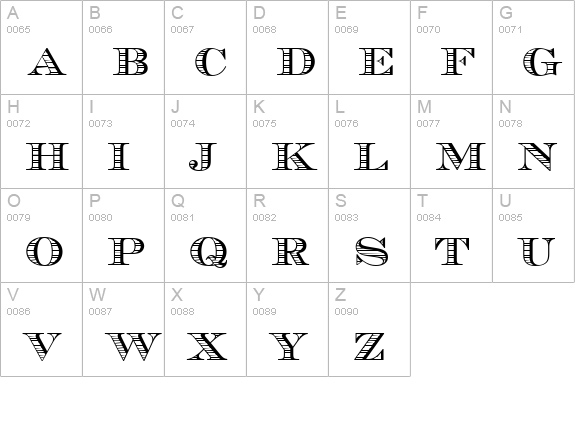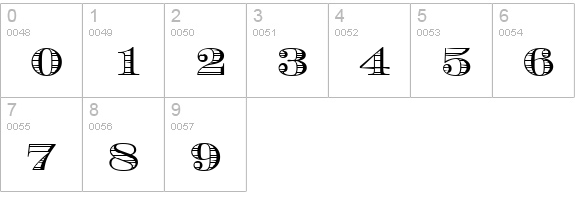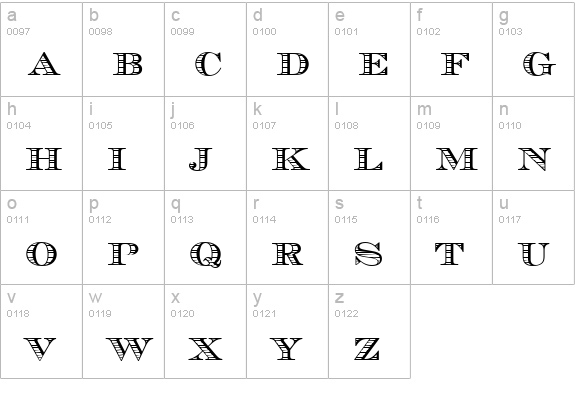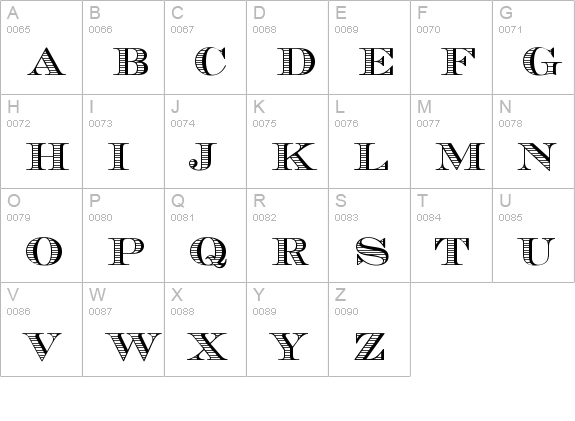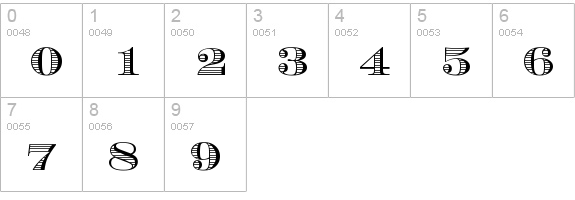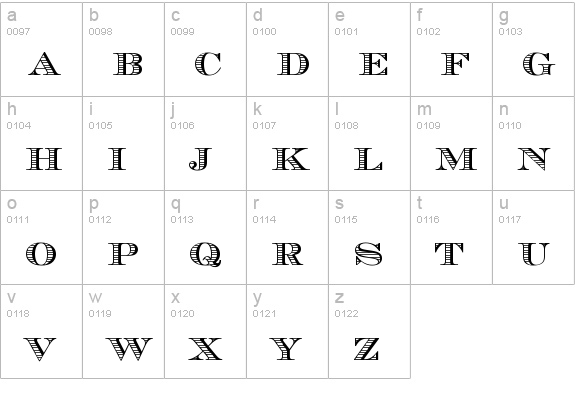
Maurice-Stripes-Regular Font Details
Maurice-Stripes-Regular is the standard, neutral variant in the Maurice typeface family \xE2\x80\x94 well suited to general body text, paragraphs, and standard typographic work.
Maurice Stripes Regular font is a versatile and stylish typeface that exudes a modern and playful vibe. This font features a unique striped pattern that adds a touch of sophistication to any design project. With its clean lines and balanced proportions, Maurice Stripes Regular is perfect for a wide range of applications, from branding and advertising to packaging and web design. What's even better is that Maurice Stripes Regular font is available for free download at FontsMarket.com. This means you can easily add this eye-catching font to your collection without any cost, making it a valuable asset for your creative projects. Don't miss out on the opportunity to enhance your designs with the distinctive charm of Maurice Stripes Regular font. Download it now and let your creativity shine!